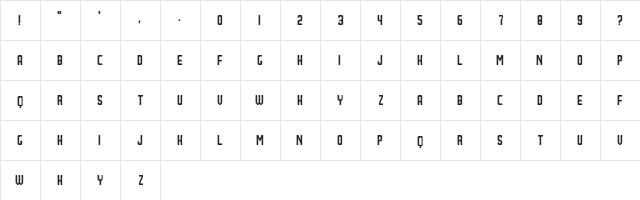
Party Lights [WLM] Regular
| Designer | Wolf Lambert |
Design Context for Party Lights [WLM] Typeface
Party Lights [WLM] offers clean, dependable letterforms without strong stylistic allegiance, making it a practical choice for designers who need flexibility. Its slender proportions lend an understated elegance to any composition.